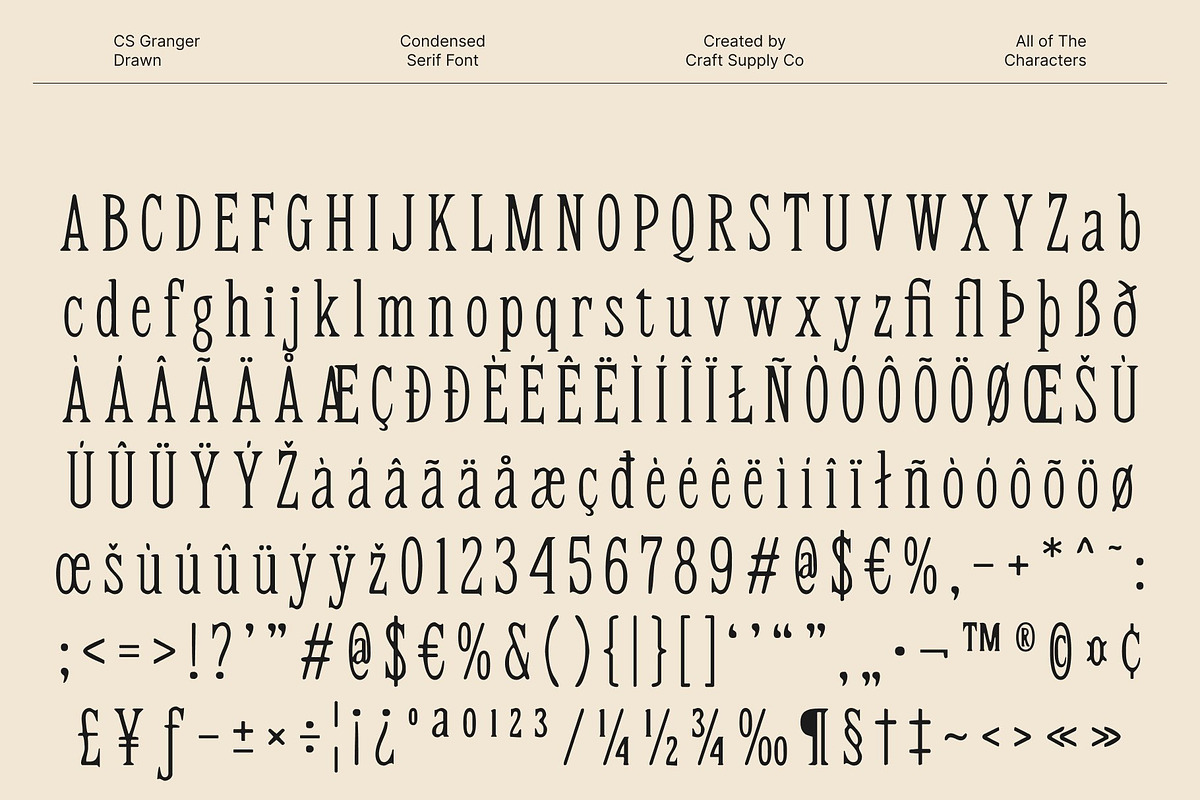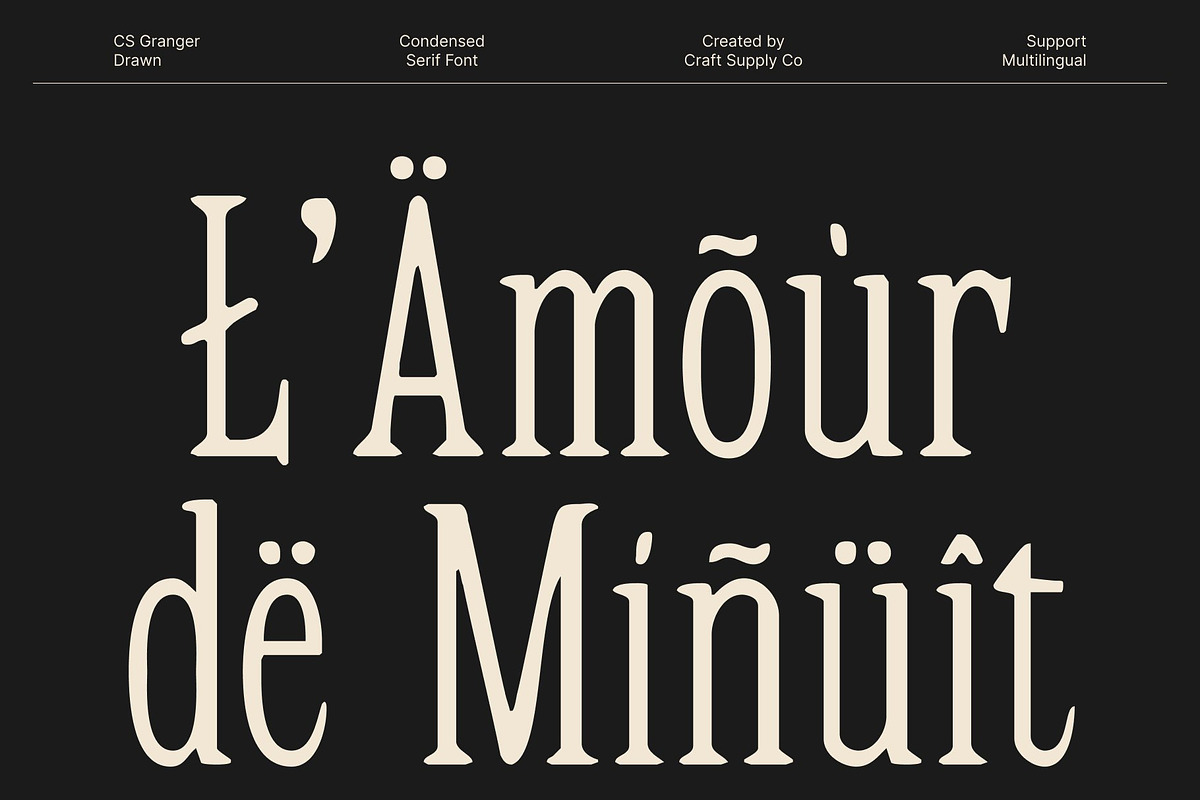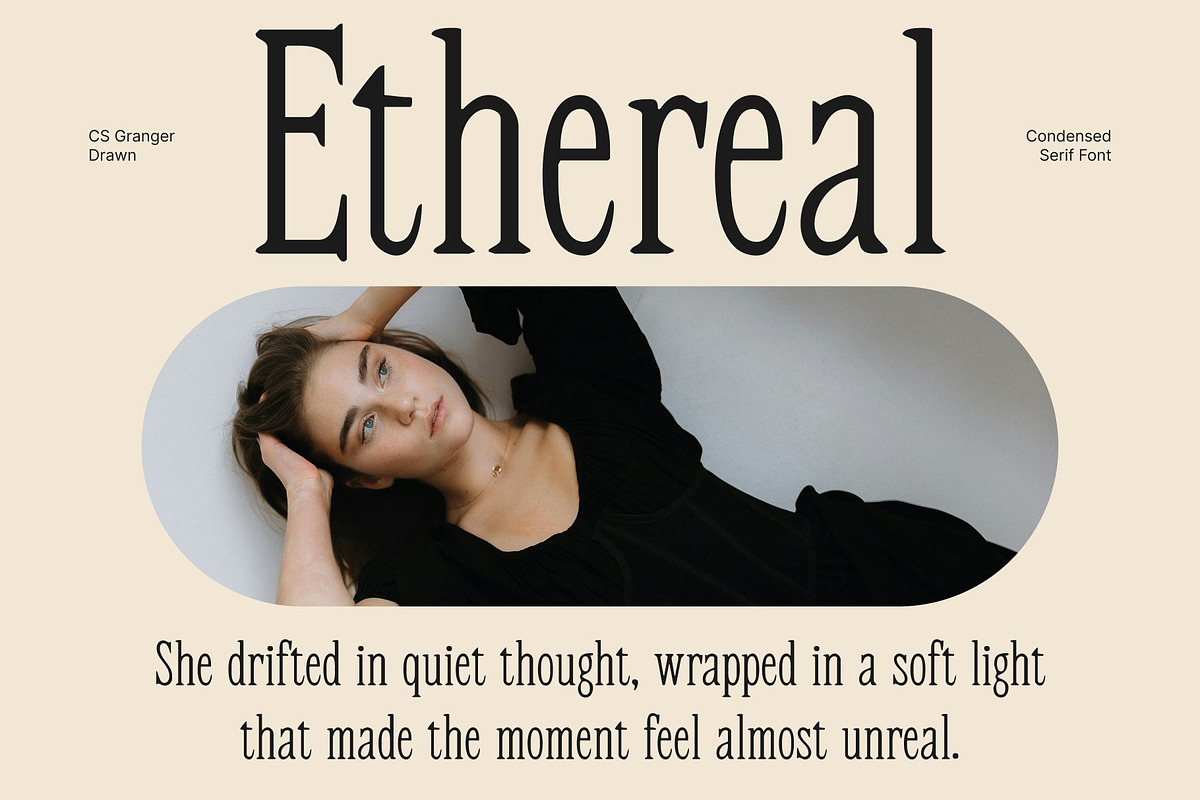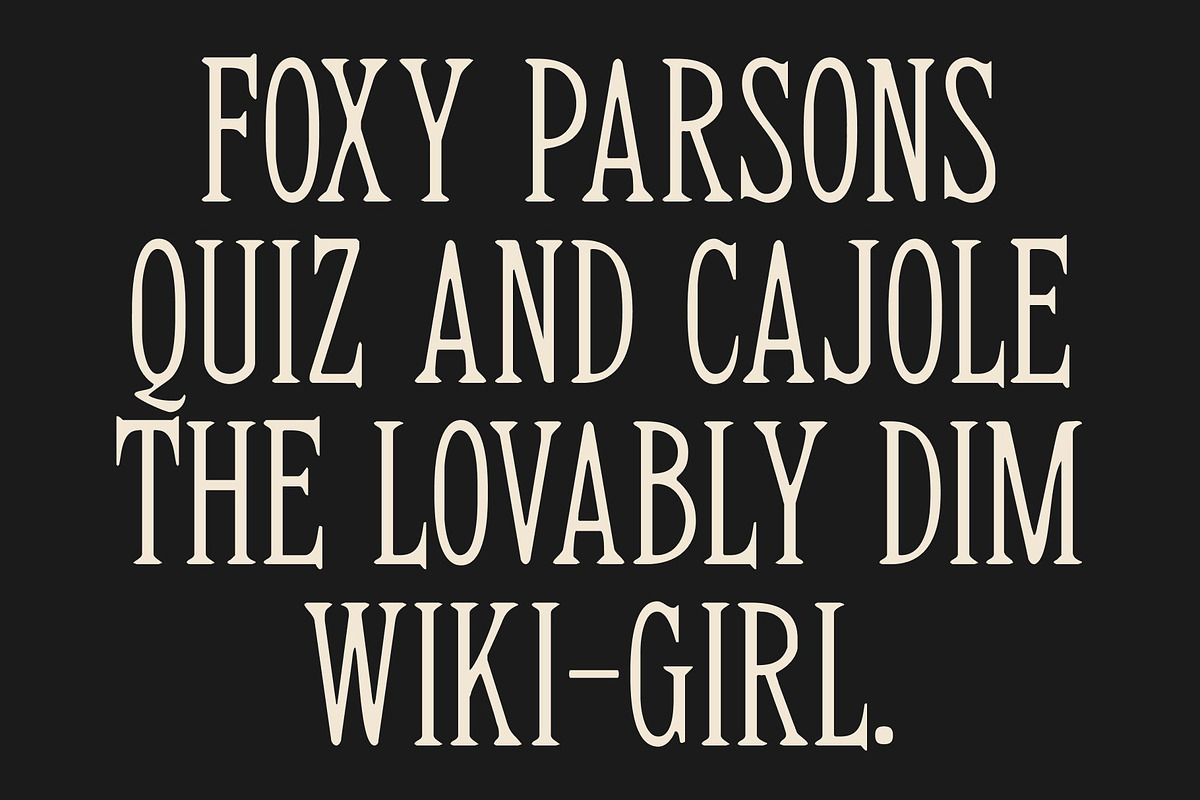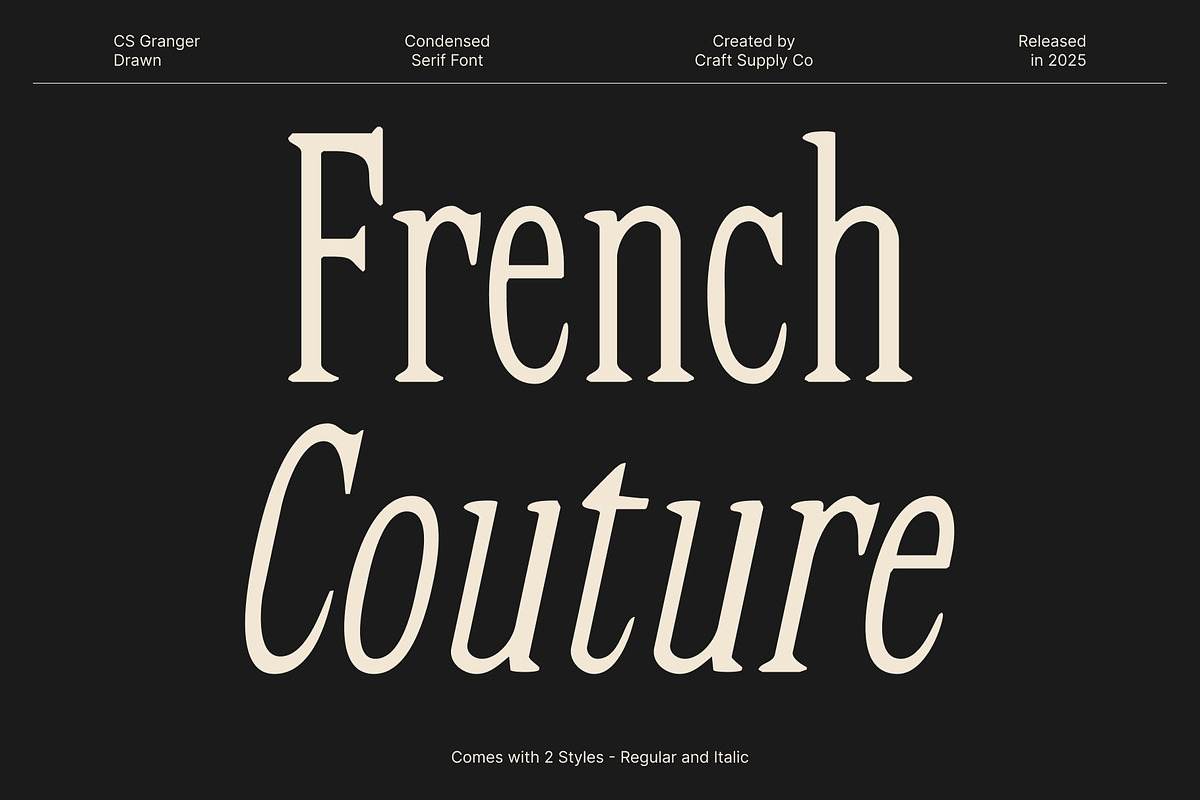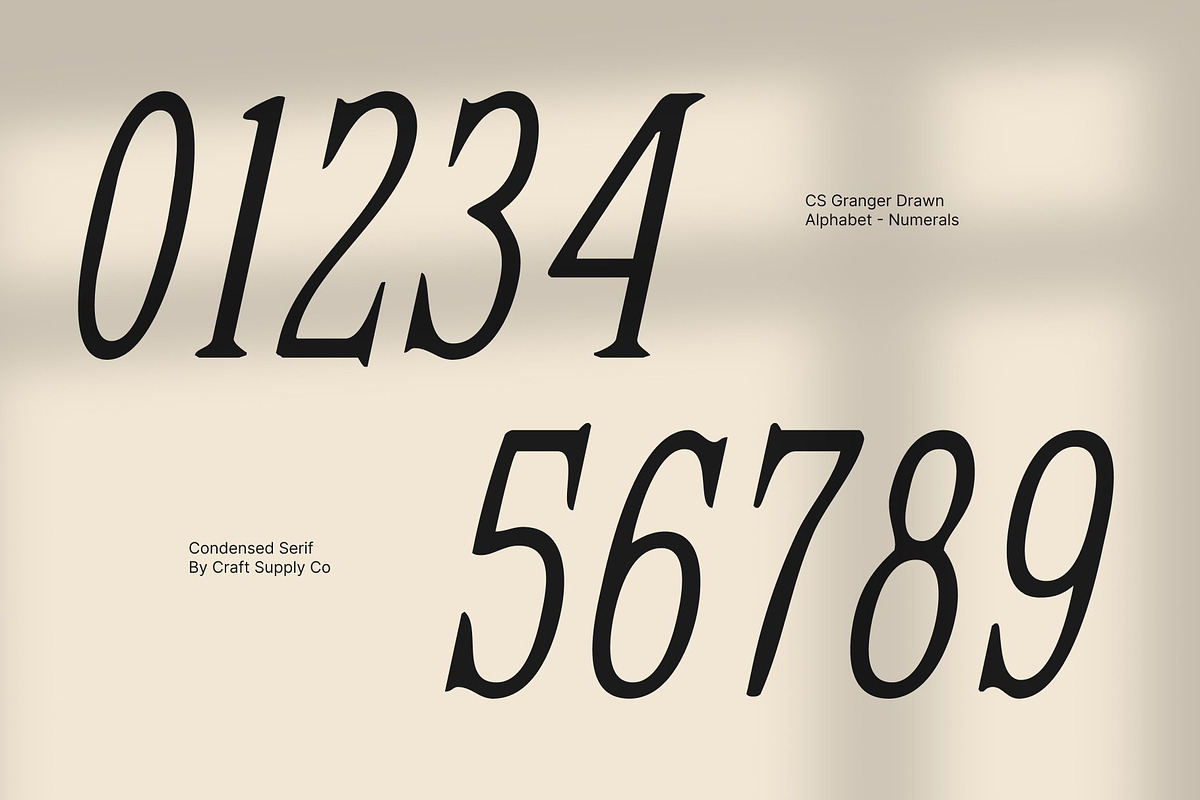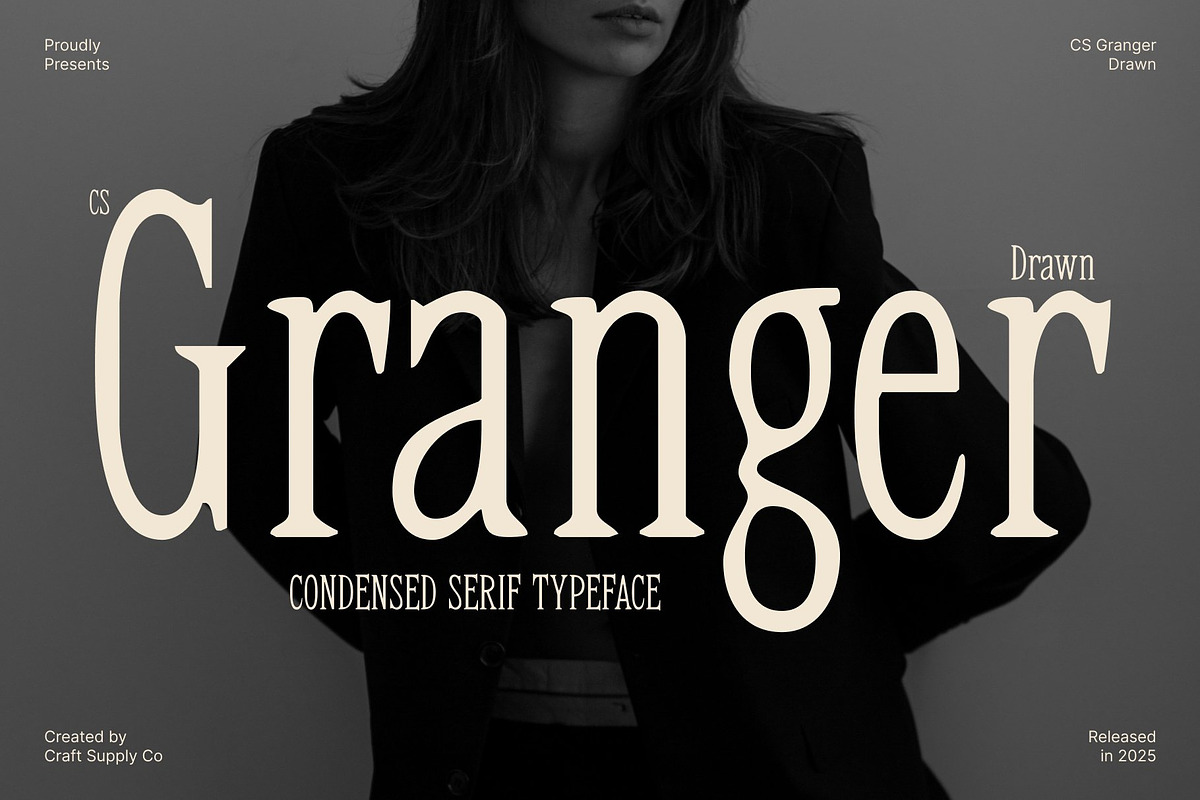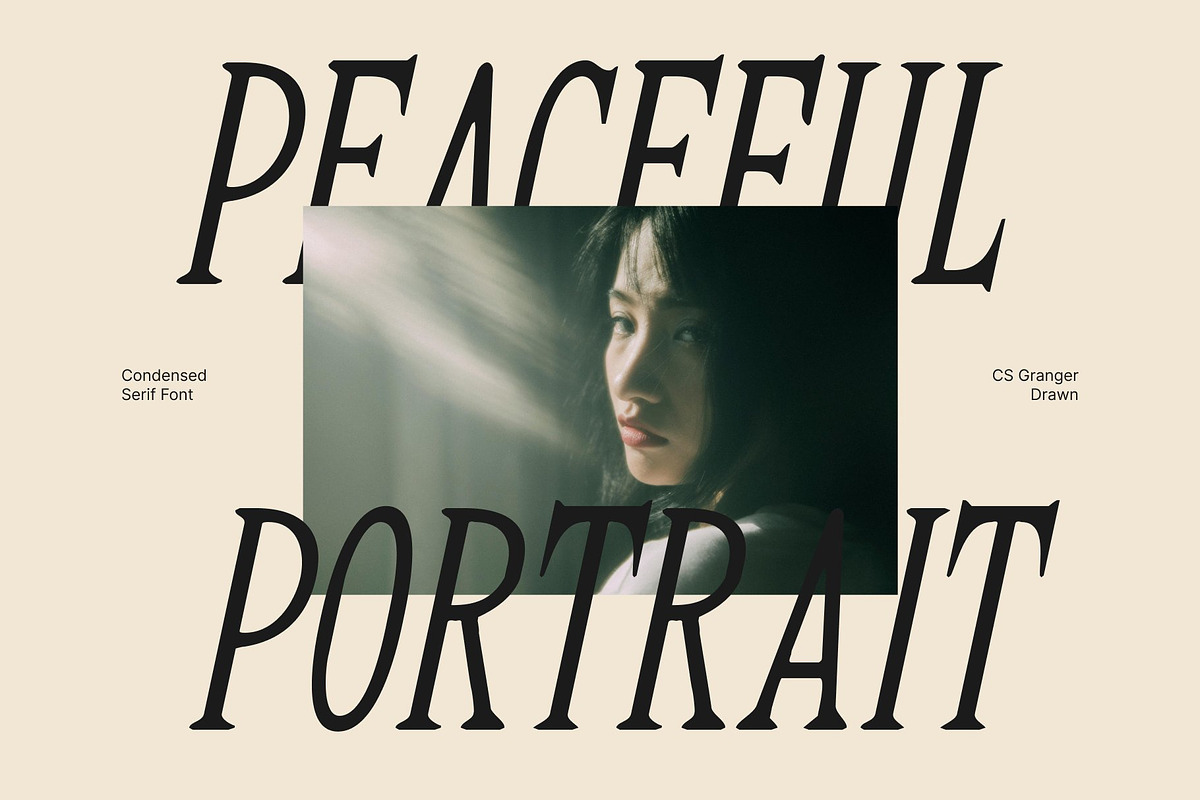
CS Granger Drawn
CS Granger Drawn – Condensed Serif Font with Handcrafted Elegance
Condensed Serif Font with Drawn Character This is a condensed serif display font that blends classic refinement with a subtle hand-drawn texture. Designed to feel elegant yet expressive, this font introduces organic imperfections into a clean, modern serif structure. The drawn effect softens its sharp construction, adding warmth and personality while preserving a professional and polished appearance.
Slim Structure for Space Efficiency Built with tall proportions and a condensed width, maximizes space efficiency without sacrificing clarity. Its narrow letterforms allow designers to present strong messages in limited layout areas, making it ideal for headlines, editorial layouts, packaging, and branding systems that demand both elegance and economy of space.
Classic Serif Elegance with a Handmade Touch This font balances timeless serif traditions with modern clarity and handcrafted character. The refined serifs convey heritage, trust, and sophistication, while the drawn texture introduces an artistic and human feel. This combination creates a font that feels confident yet approachable, perfect for designs that aim to stand out with subtle originality.
Versatile for Editorial, Branding, and Creative Design Highly adaptable across print and digital media, performs beautifully in high-end editorials, luxury branding, boutique packaging, logos, and refined promotional materials. Its unique blend of classic elegance and expressive detail allows designers to communicate authority, style, and creativity simultaneously.